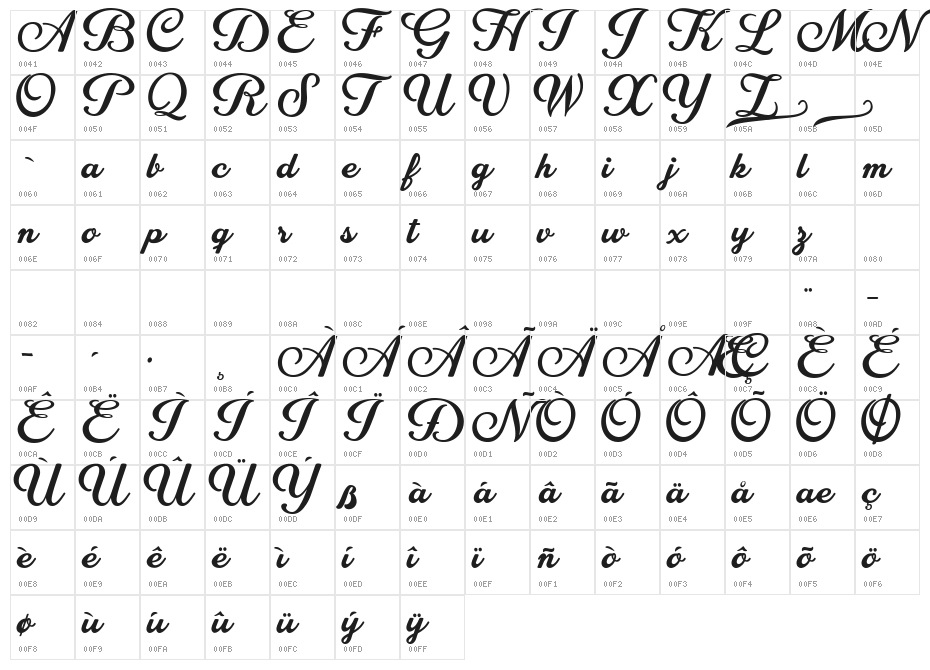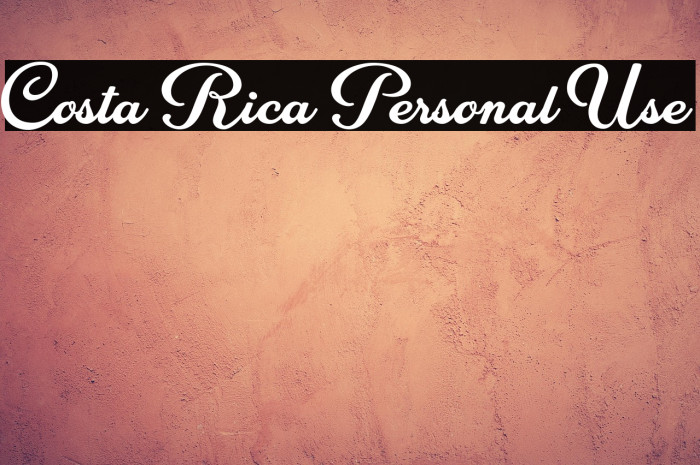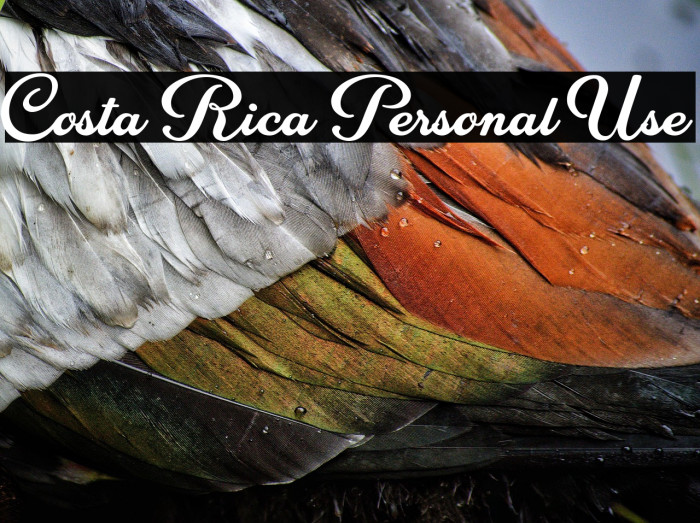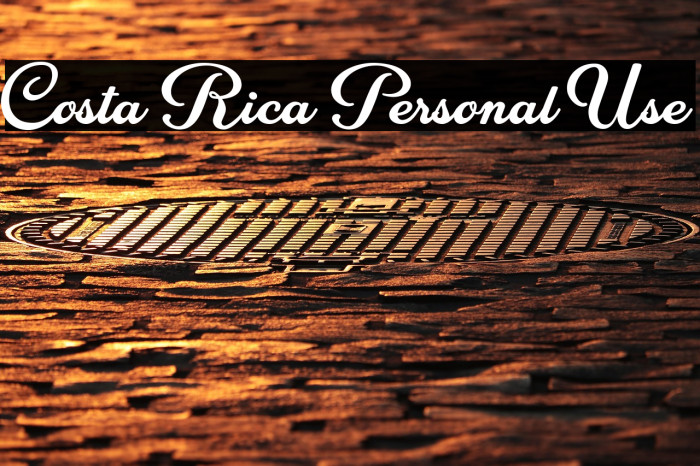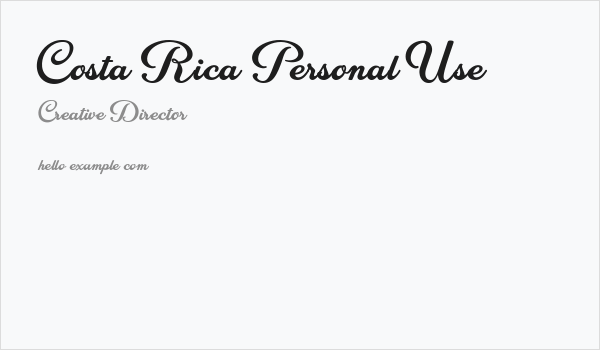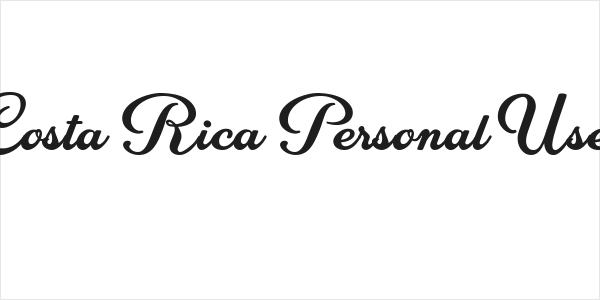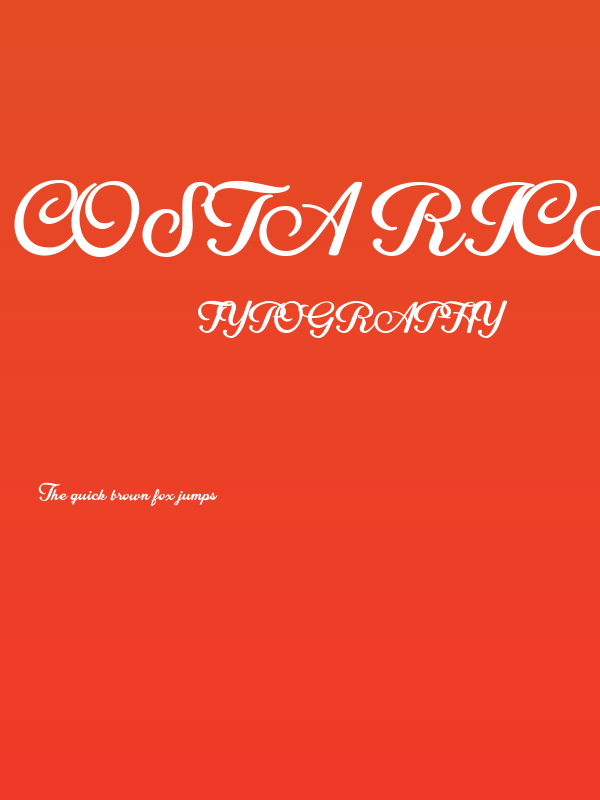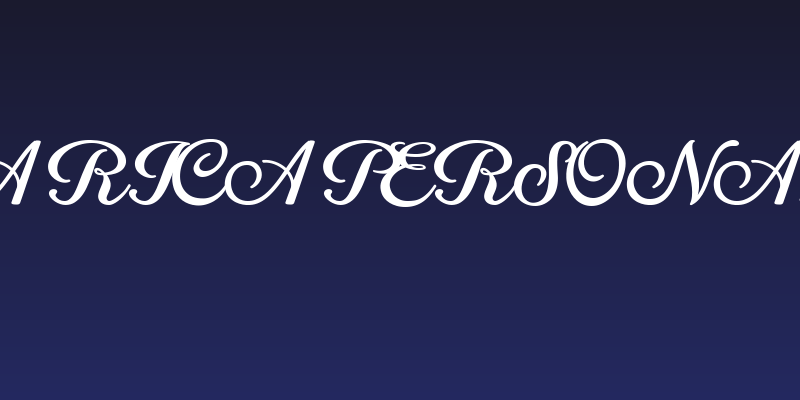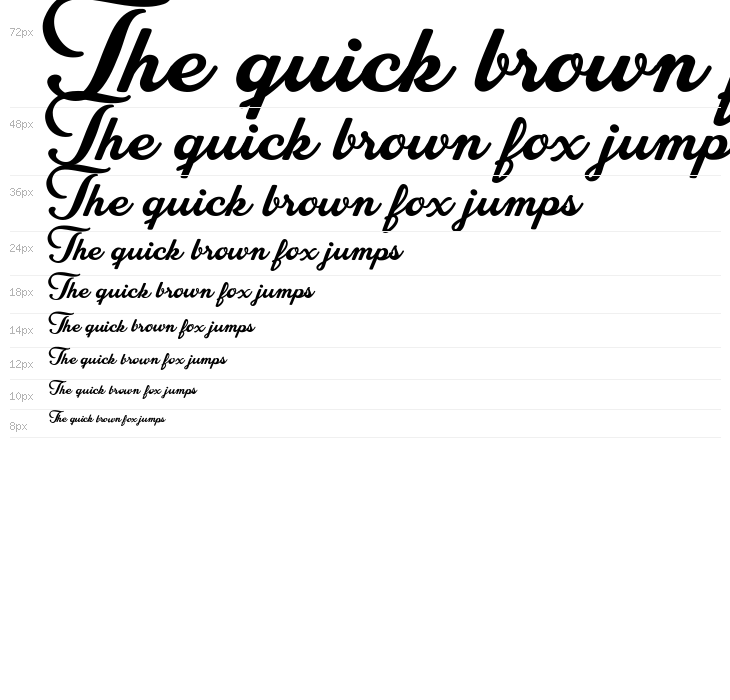
Costa Rica Personal Use Font
Costa Rica Personal Use Description
This font features a classic script style with elegant, flowing lines and a sophisticated appearance. The uppercase letters are adorned with graceful curves and loops, giving them a decorative flair. The lowercase letters maintain a consistent flow, enhancing readability while retaining an artistic touch. The font's overall design is reminiscent of traditional calligraphy, making it suitable for formal and elegant applications. The characters are well-spaced, ensuring clarity and legibility even in smaller sizes. This font exudes a timeless charm, perfect for adding a touch of elegance to any project.
| Use Case | Headlines, Invitations, Logos |
| Proposed Projects | Ideal for wedding invitations, formal event programs, elegant branding, and high-end product packaging. |